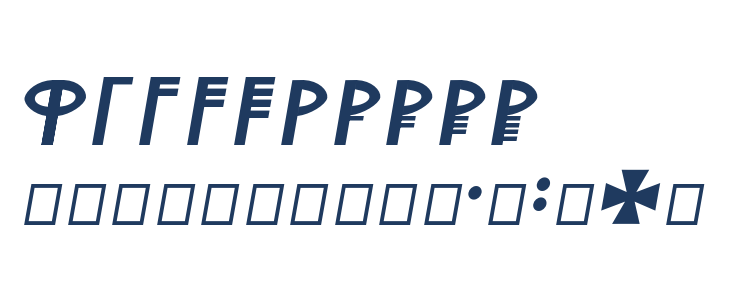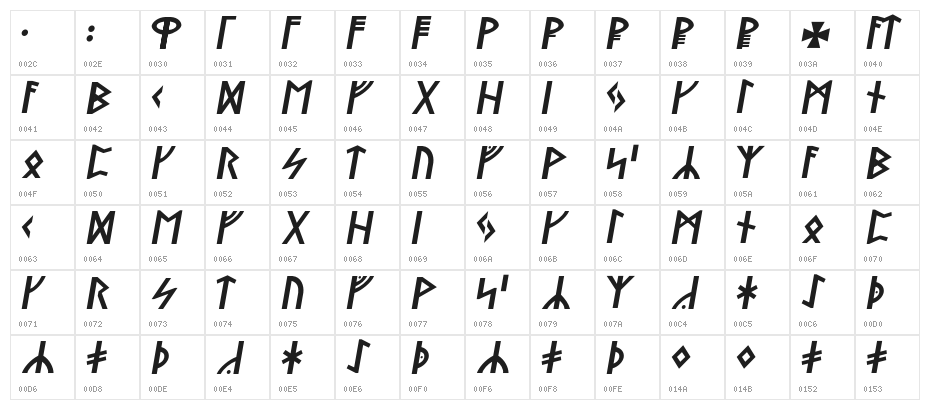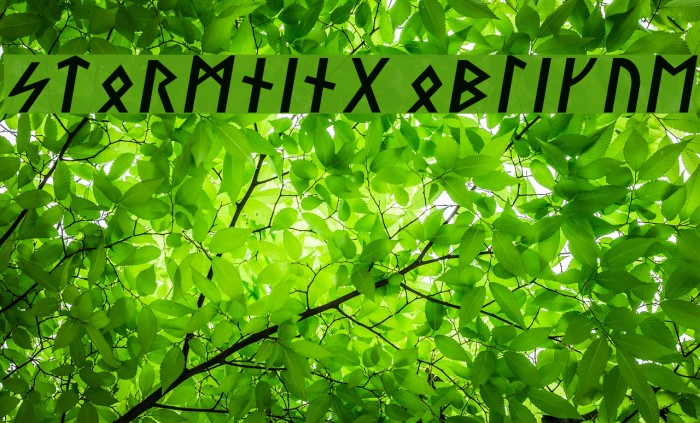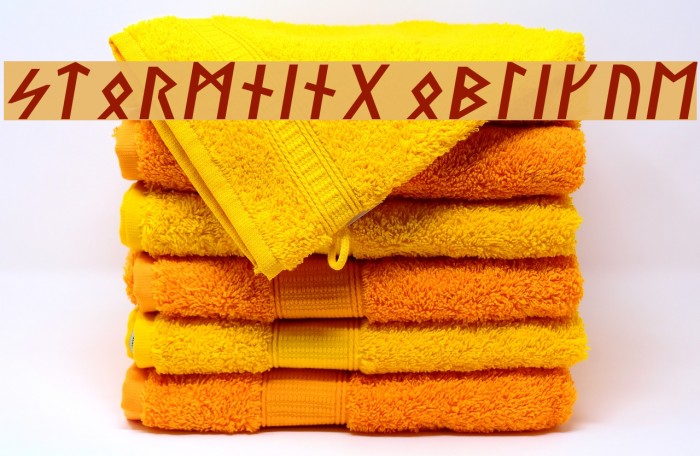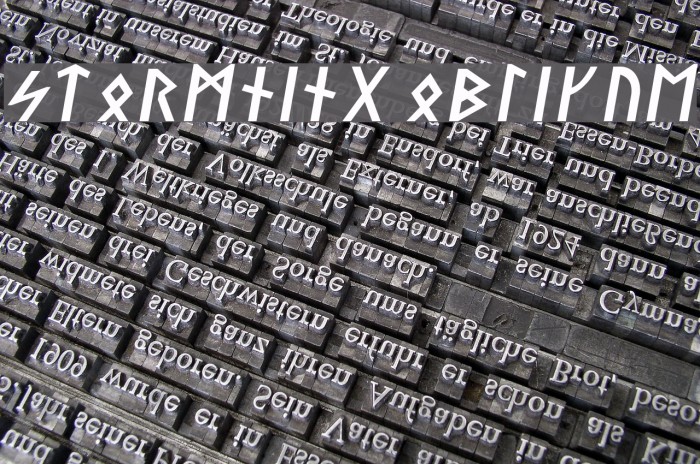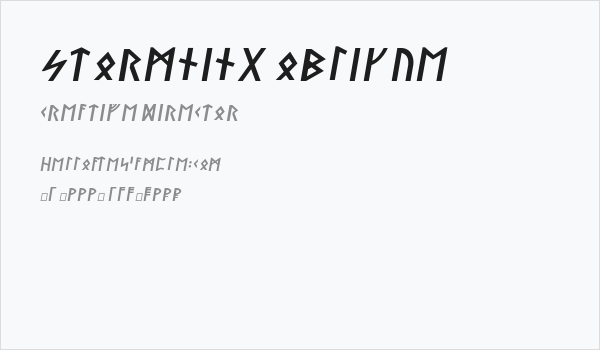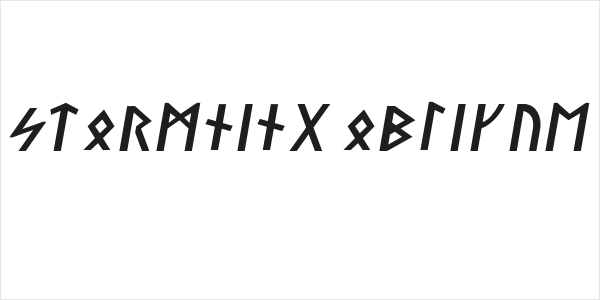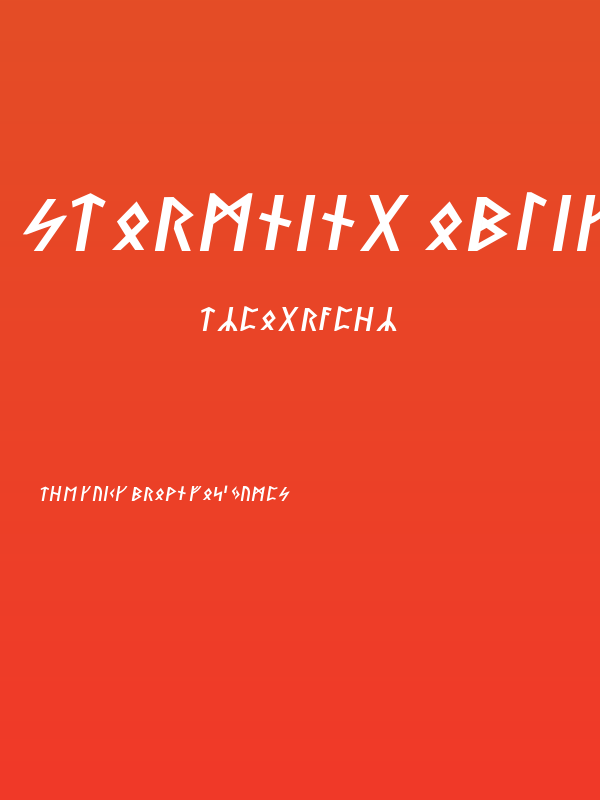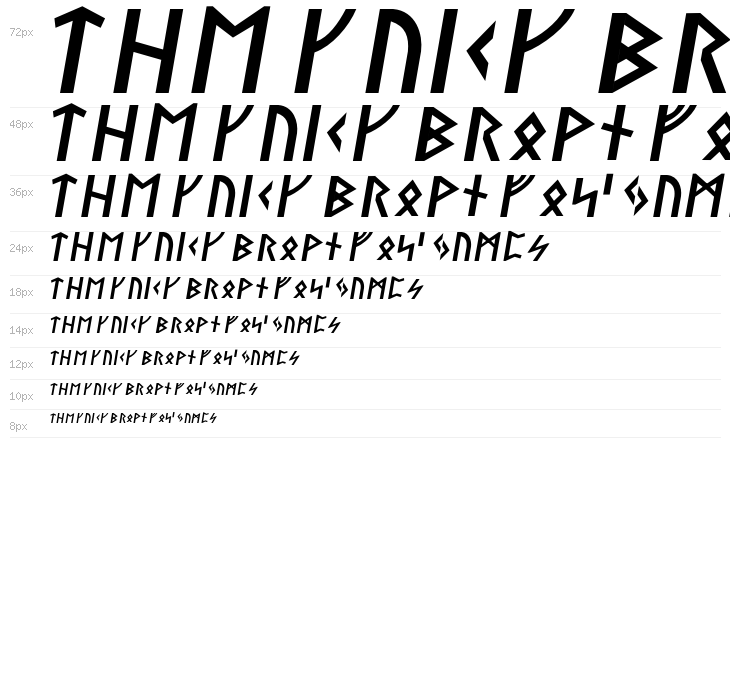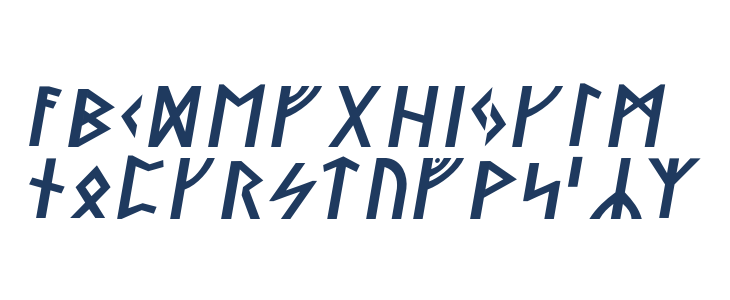
Stormning Oblique Font
Stormning Oblique Description
This font features a bold and dynamic design with sharp, angular lines and a distinct oblique style. The characters are heavily stylized, resembling ancient runic symbols with a modern twist. The uppercase and lowercase letters share a consistent geometric theme, while the numbers and special characters maintain the same angular aesthetic. The font's unique appearance makes it suitable for projects that require a strong, impactful visual presence.
| Proposed Projects | Ideal for fantasy-themed designs, video game titles, movie posters, and branding that requires a strong, mythical aesthetic. |